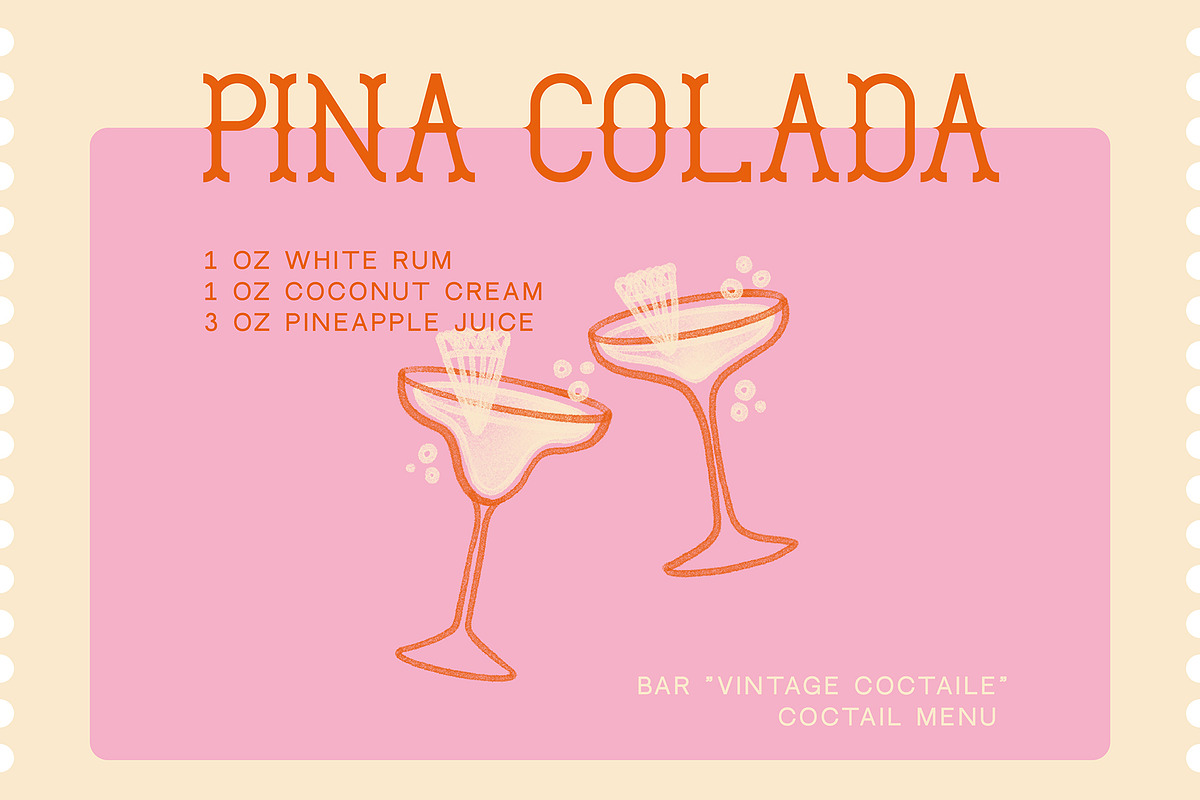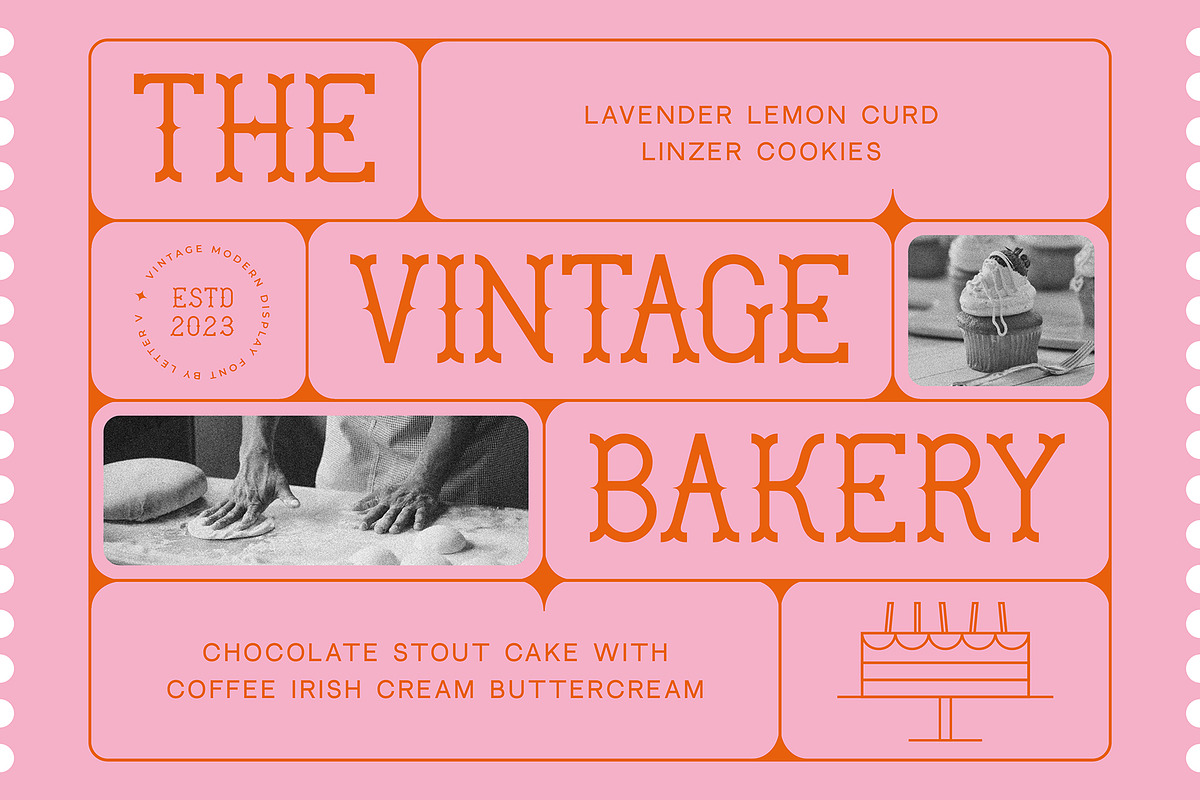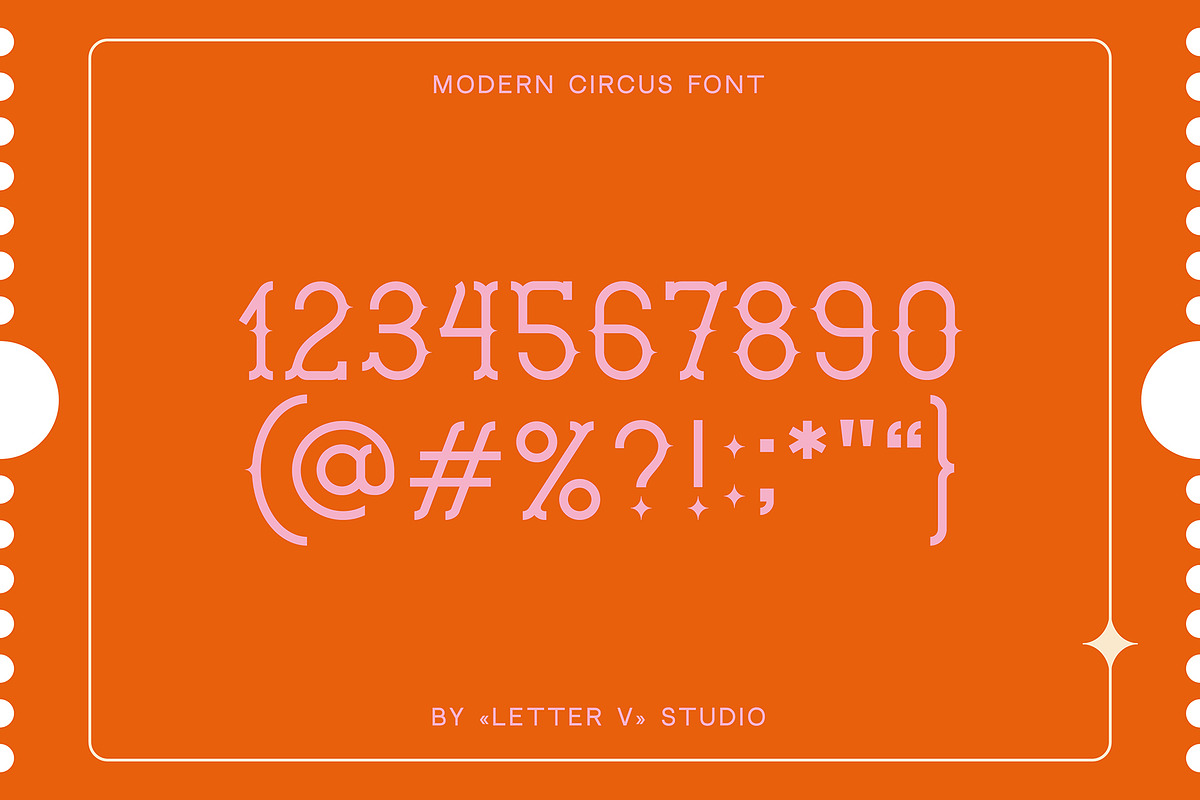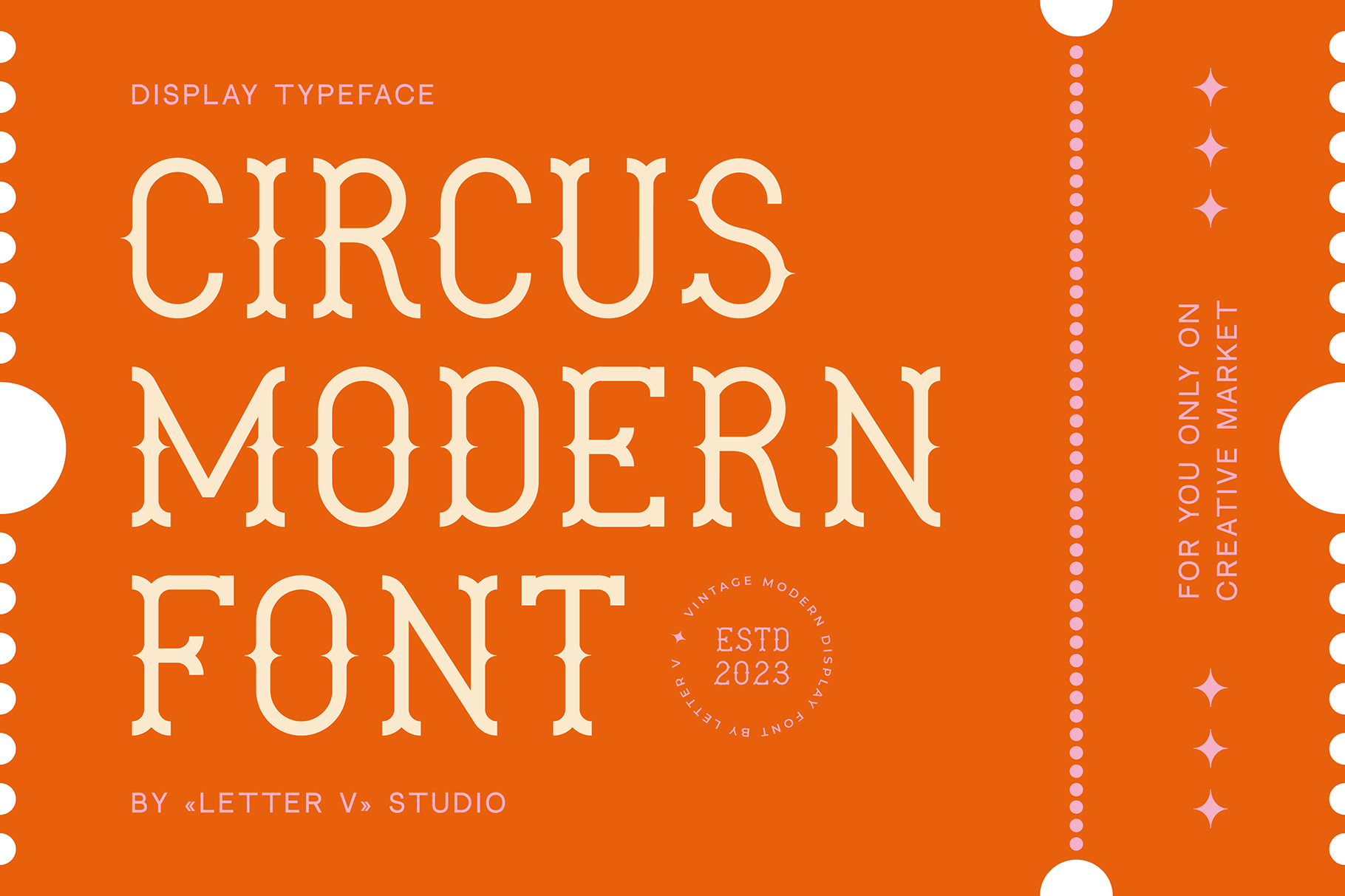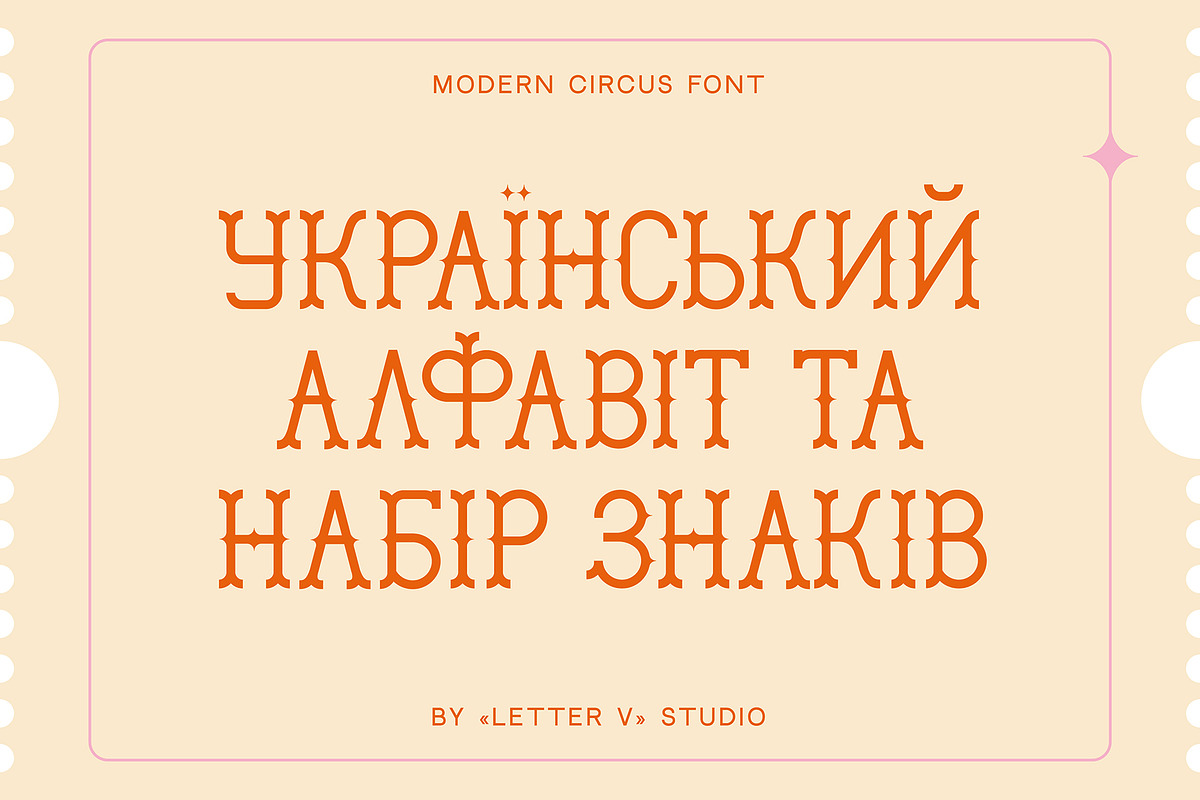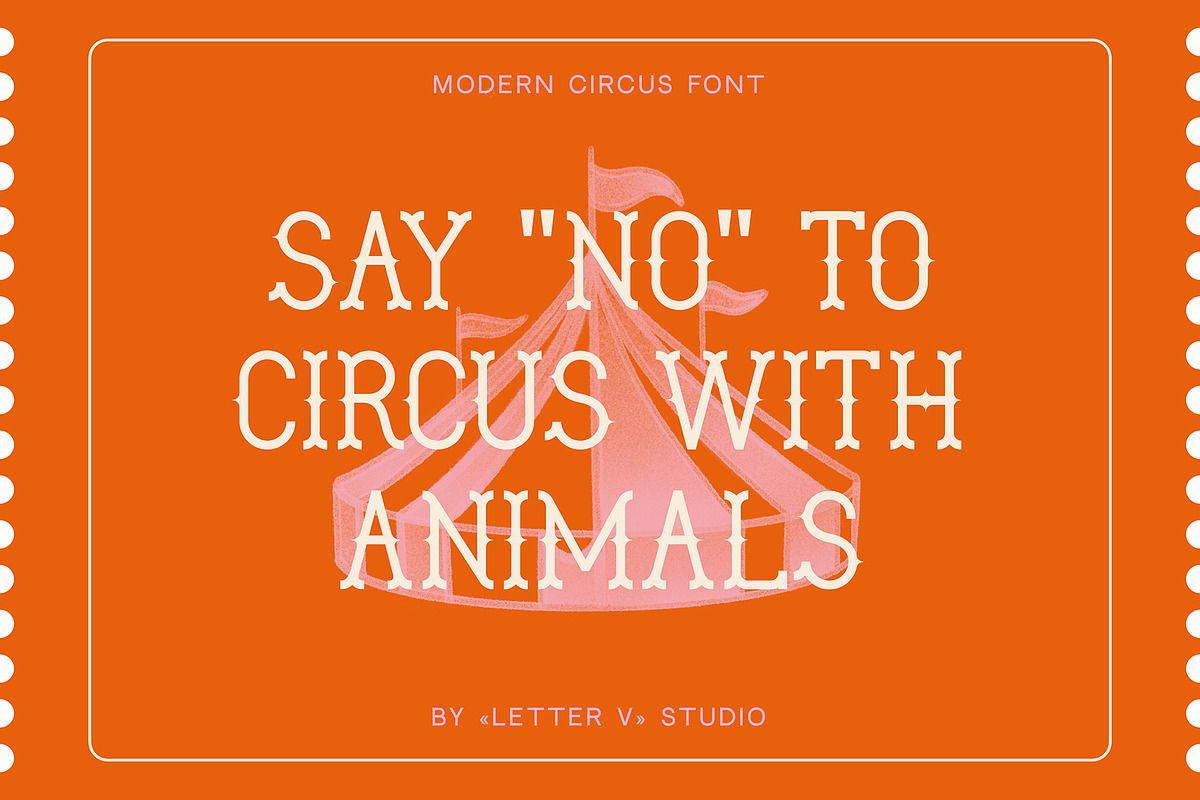
MODERN CIRCUS - vintage display font
MODERN CIRCUS FONT is a modern vintage display font. This typeface has can be used for modern theme or vintage looks.
While working on this font I was inspired by American vintage circus posters. I wanted to style a vintage font in a new manner and I’ve created its modern version where I used just one line thickness and aligned corners.